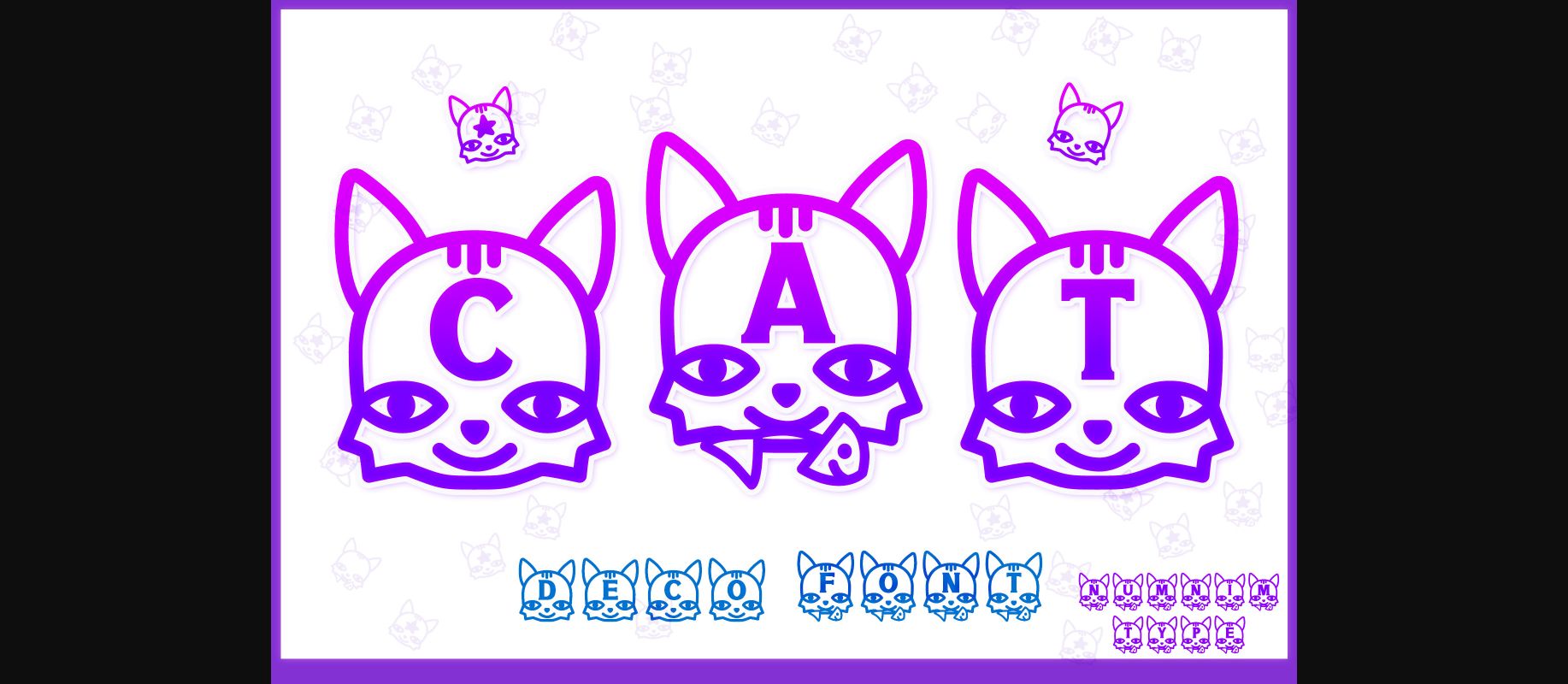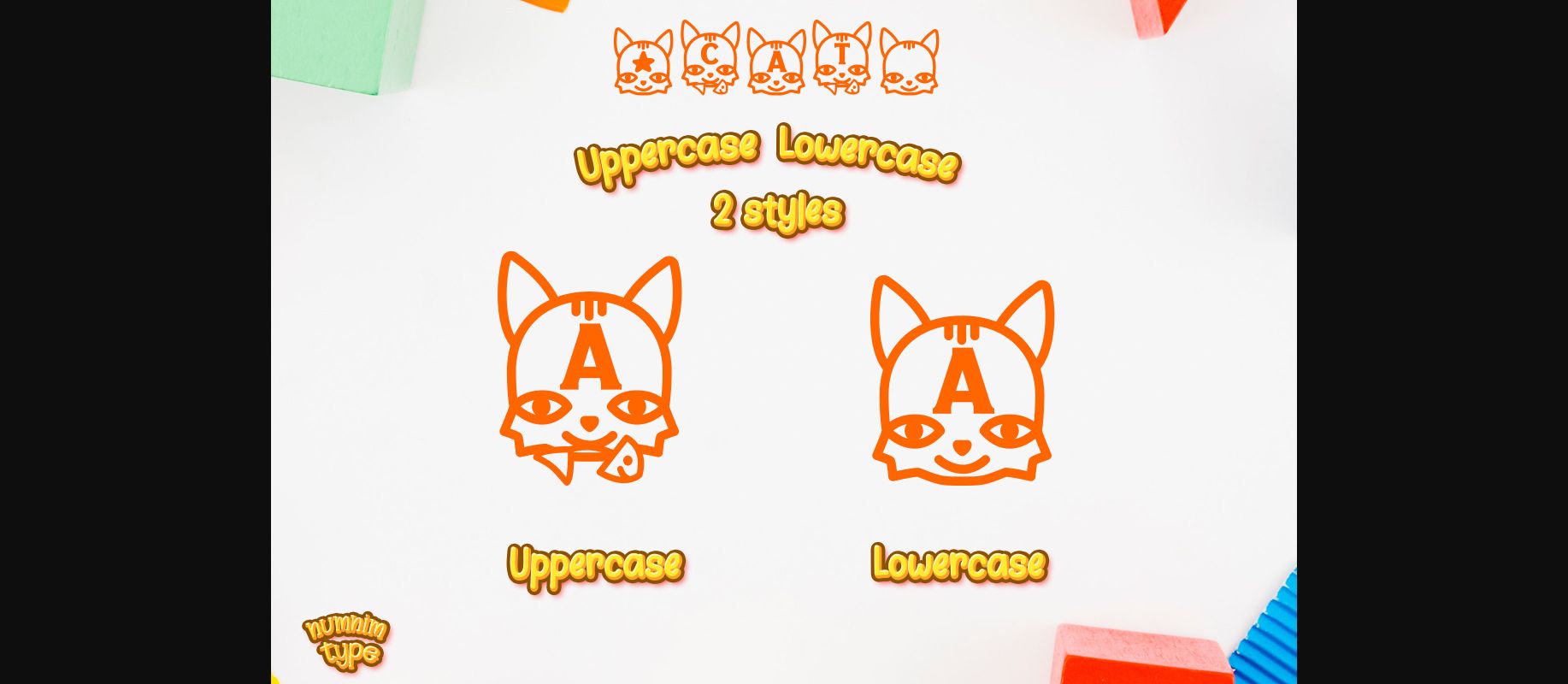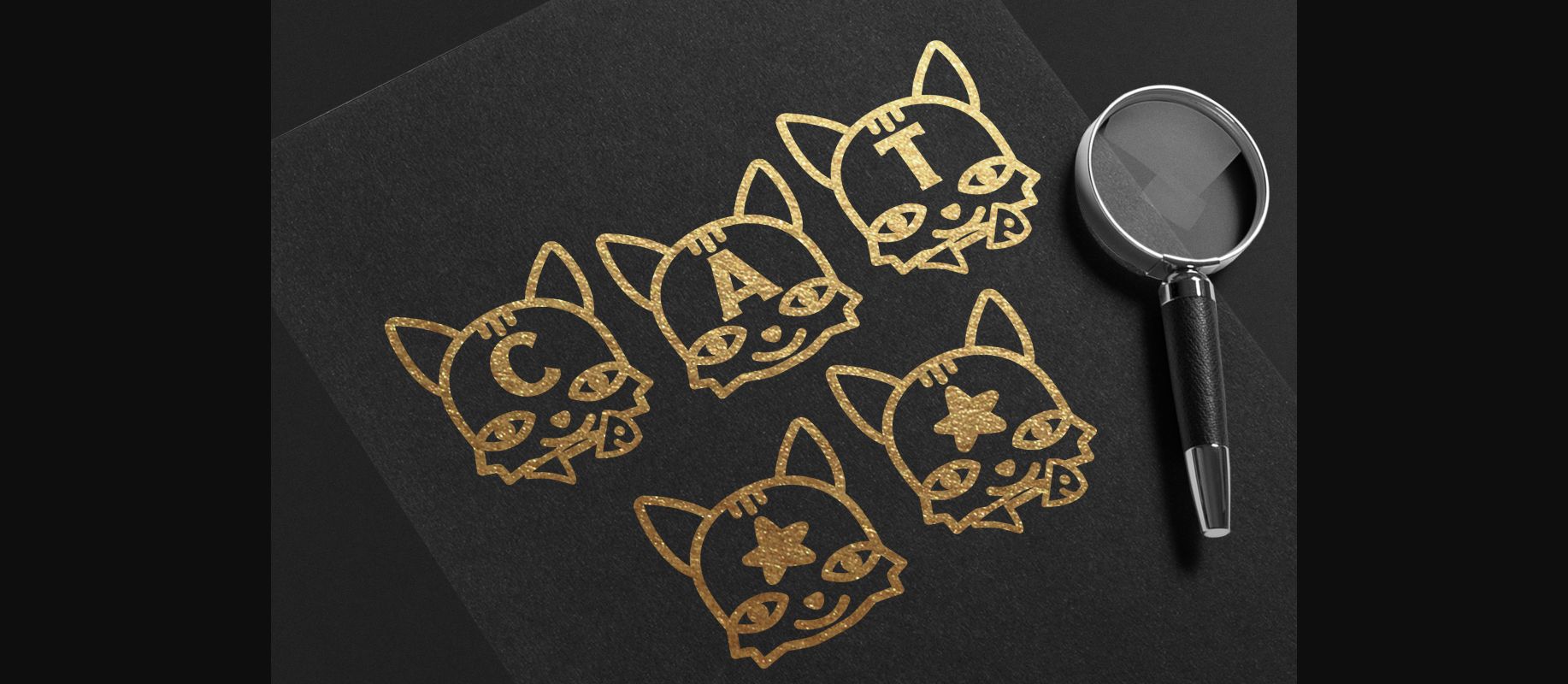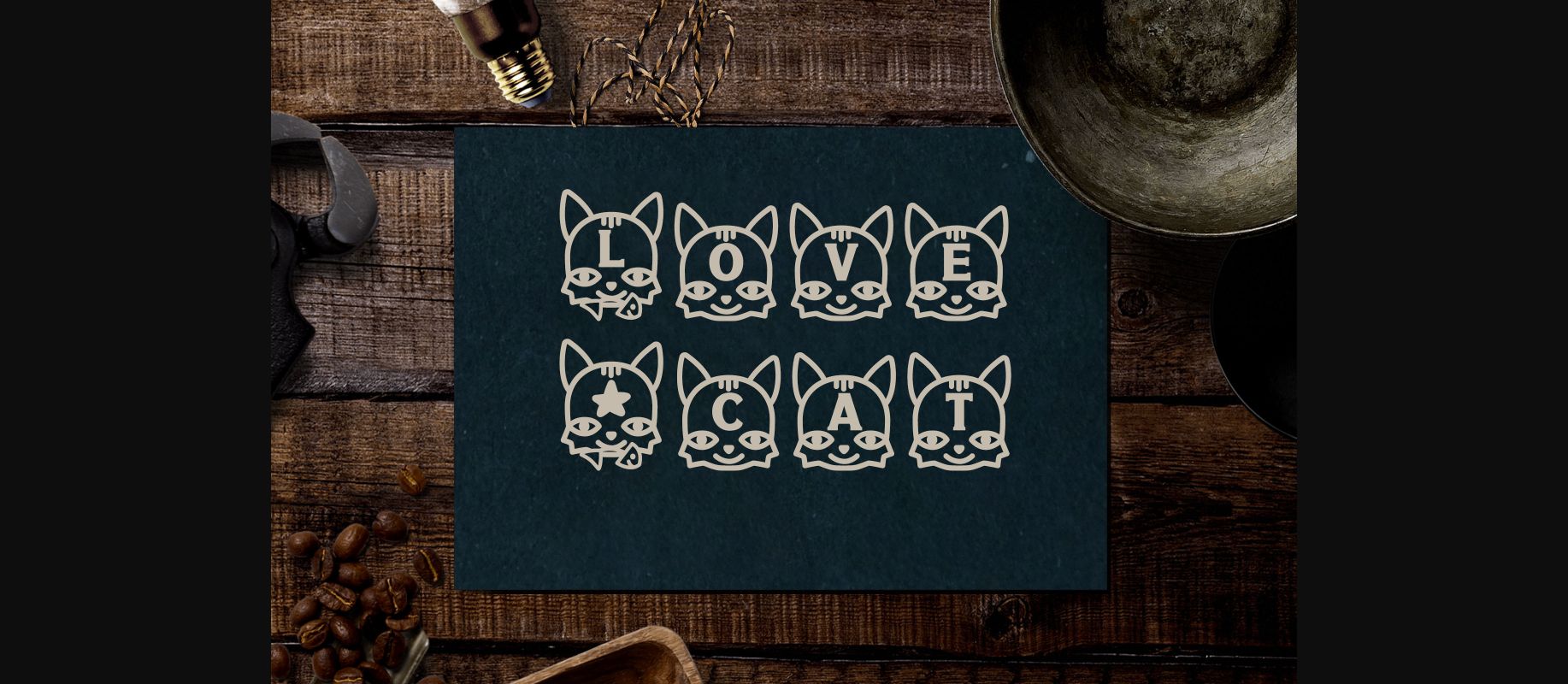
About Cat Font
Cat is a cool and uniquely crafted decorative font. Its fun and playful characters make it the perfect font for stickers, mugs, t-shirts, ornaments, kids’ event cards, event invitations, and many more! This font is PUA encoded which means you can access all glyphs and alternates with ease!